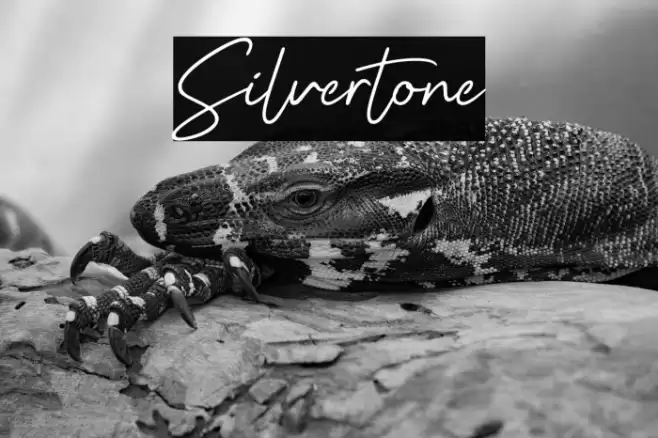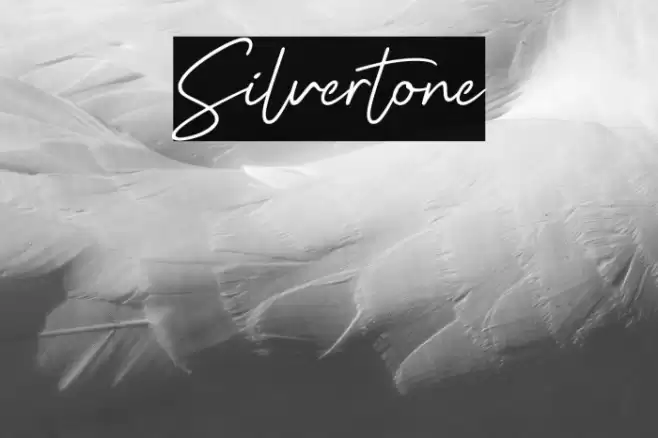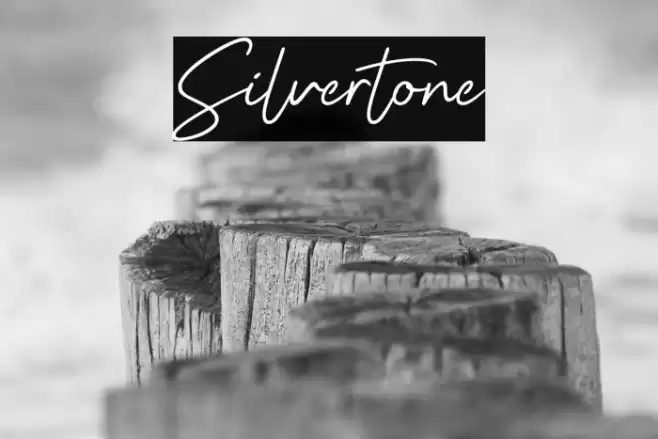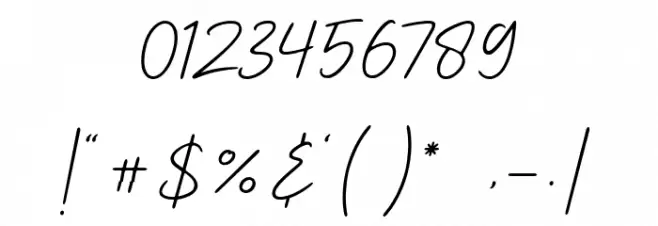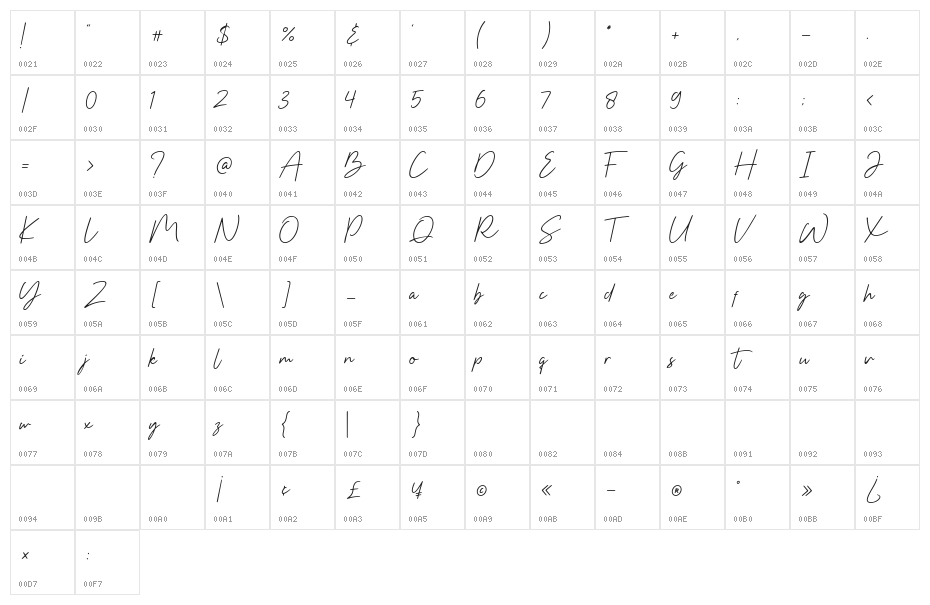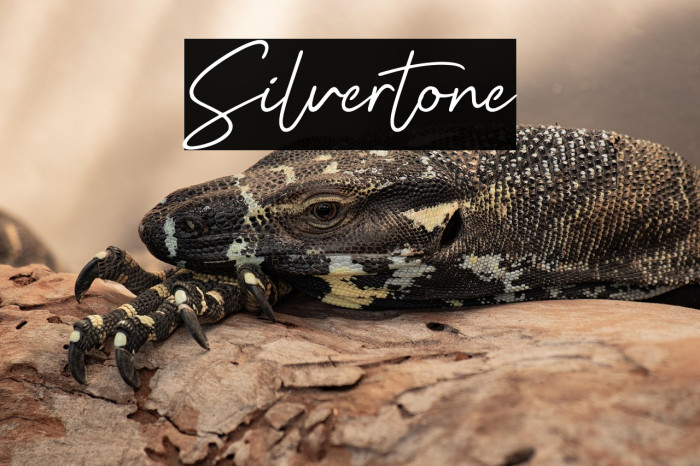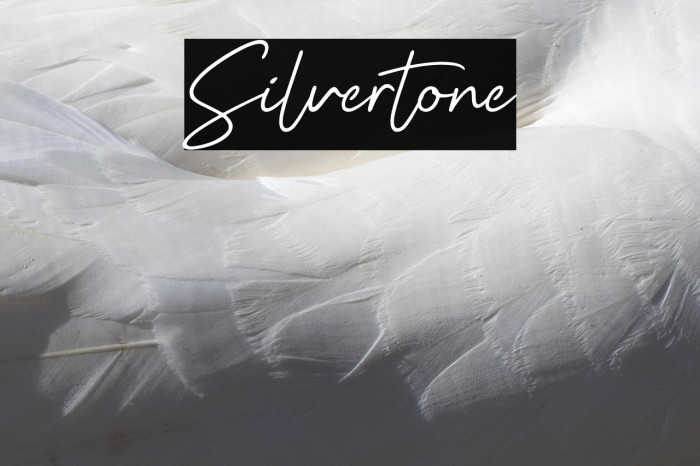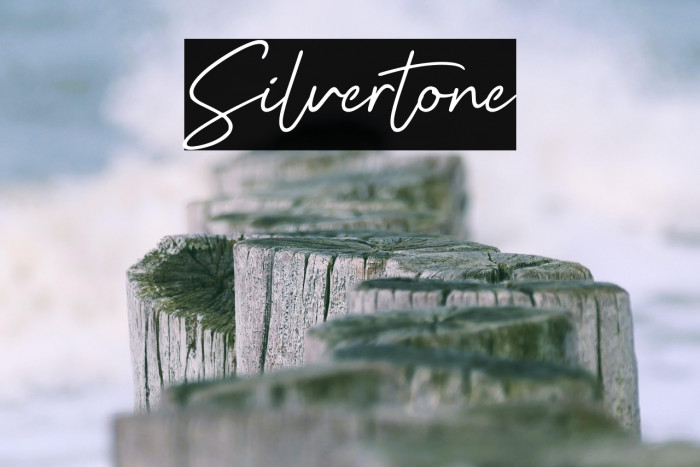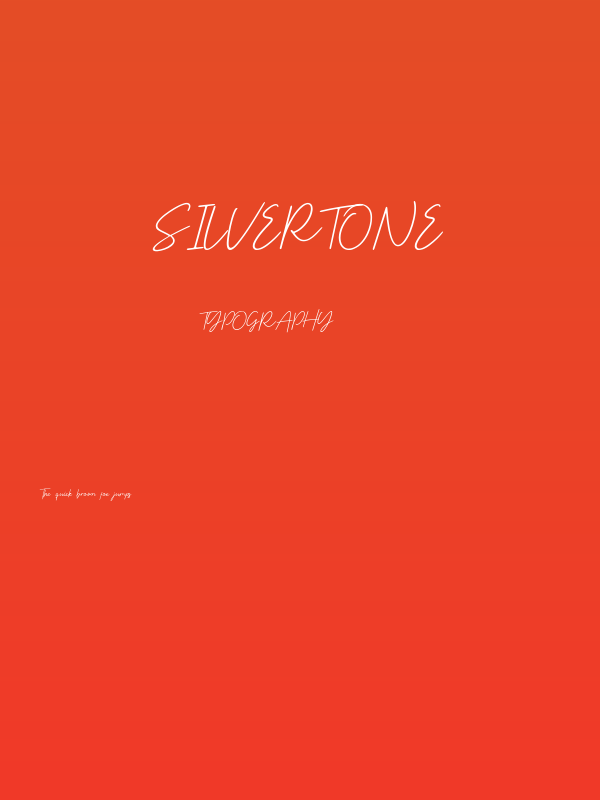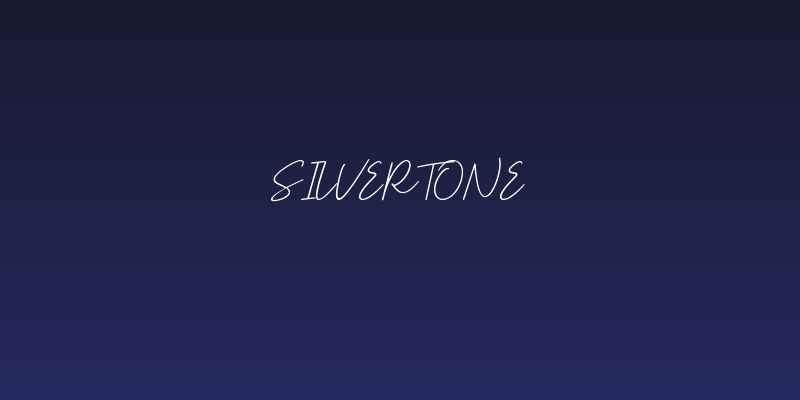
Silvertone Font
Silvertone Description
This font exudes a casual elegance with its fluid, handwritten style. The letters are gracefully connected, giving a sense of continuity and flow. The uppercase characters are slightly larger and more pronounced, while the lowercase letters maintain a consistent and harmonious appearance. The numerals are clear and legible, matching the overall aesthetic. Special characters are thoughtfully integrated, maintaining the font's cohesive look. The strokes are smooth and slightly varied in thickness, adding a touch of dynamism without sacrificing readability.
A fluid, elegant handwritten font with smooth, connected strokes from Uncategorized fonts.
- Proposed Projects: Ideal for wedding invitations, personal branding, greeting cards, and elegant packaging.
- Overall Style: Elegant, Casual
- Use Case: Logos, Invitations, Personal Branding